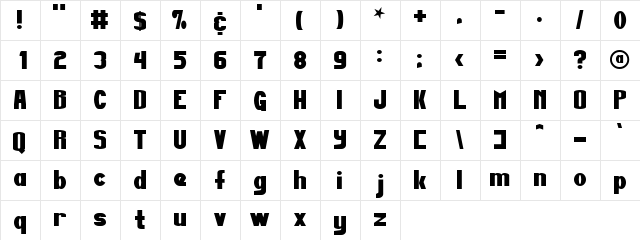
Pristo Butter Regular
Design Context for Pristo Butter Typeface
Pristo Butter takes a measured approach to typography — its balanced proportions and neutral character make it a reliable workhorse for both digital and print work.